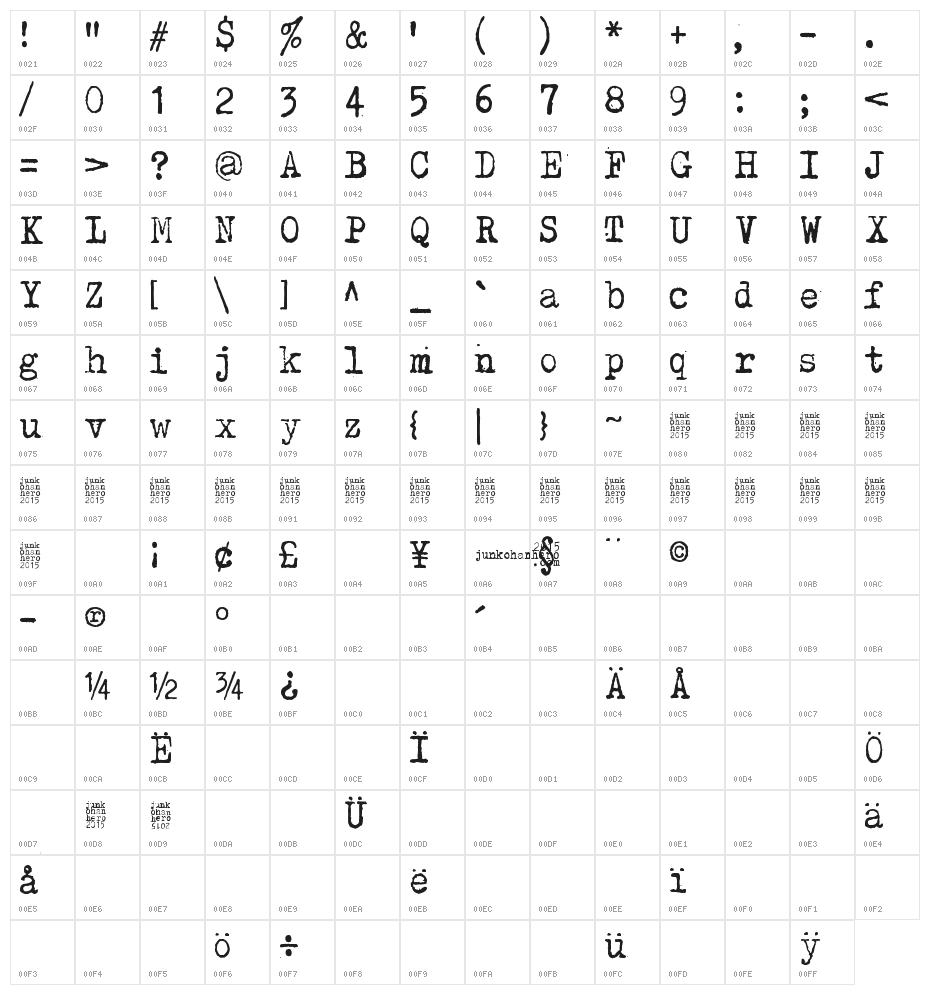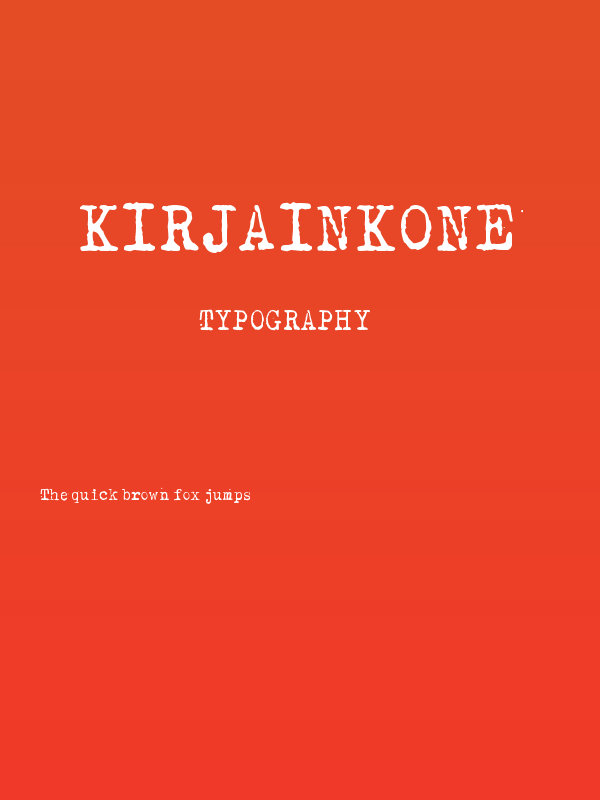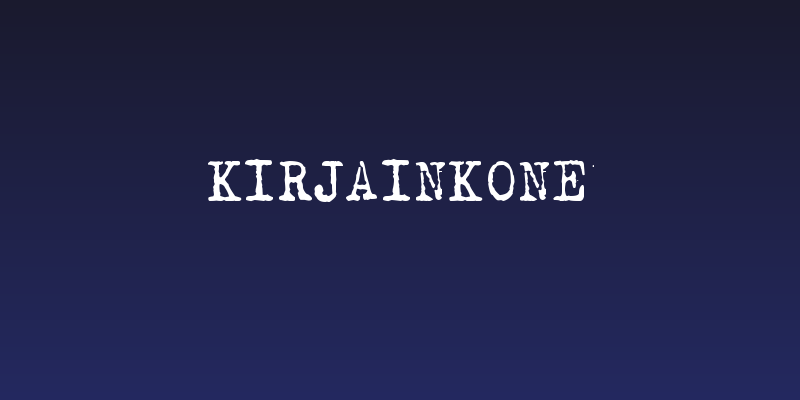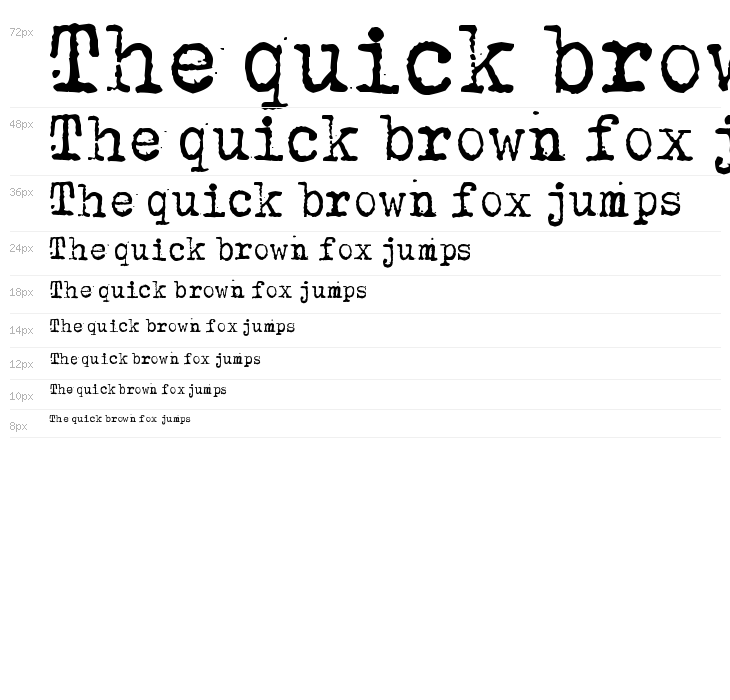
Kirjainkone Font
Kirjainkone Description
This font features a rugged, distressed appearance reminiscent of vintage typewriter styles. Each character exhibits a unique, worn texture, giving it an authentic, aged look. The uppercase and lowercase letters maintain a consistent style, with slightly irregular edges that enhance its handcrafted feel. The numerals and special characters follow the same aesthetic, ensuring a cohesive look across all text. This font's distinct, imperfect lines and varying stroke thicknesses contribute to its charm, making it ideal for projects that require a touch of nostalgia or a retro vibe.
| Proposed Projects | Ideal for vintage-themed designs, retro posters, book covers, and branding that seeks an authentic, nostalgic feel. |